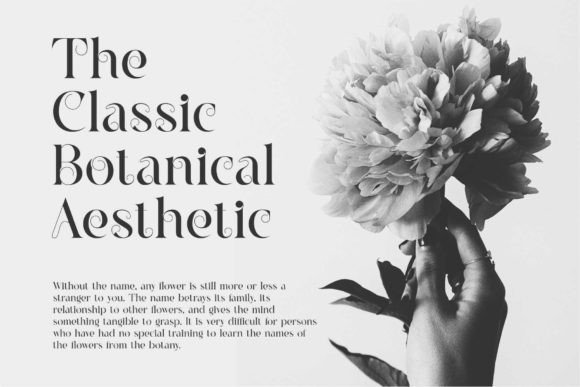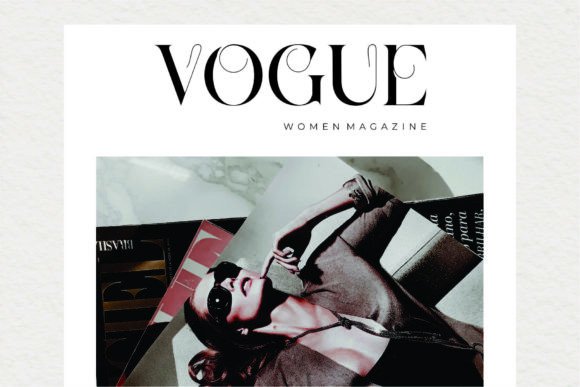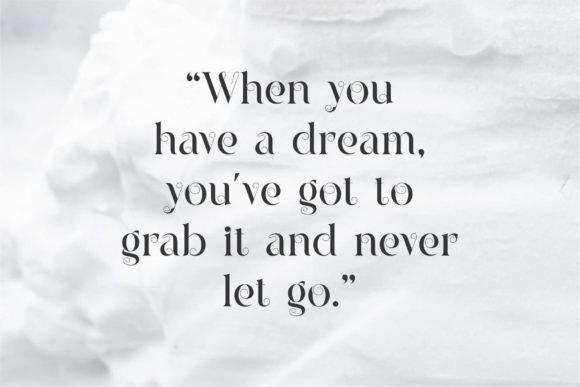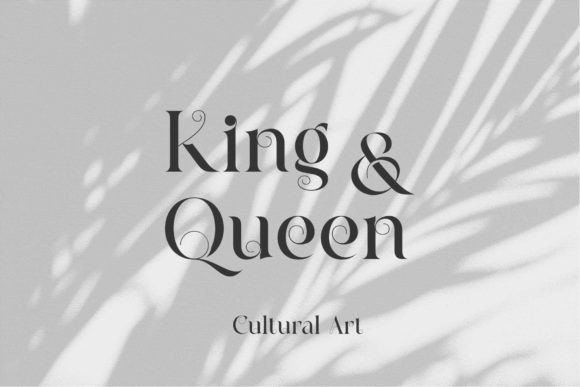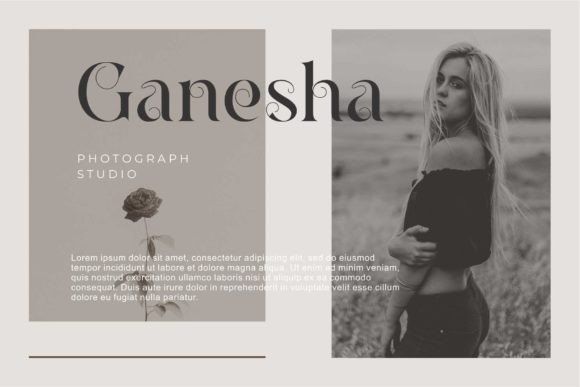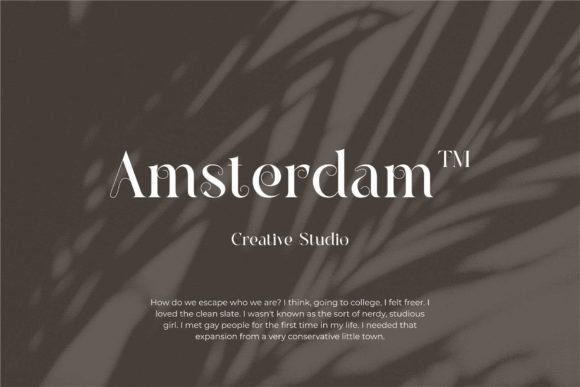
Introduction to Quilla Sugar Font
**Quilla Sugar Stylish Serif Font** is inspired by the famous minimalist logo perfect for the purposes of designing templates, brochures, videos, advertising branding, logos, invitations, layout design, elegant crafting, beauty design, and more.
Key Features of Quilla Sugar Font
Why Choose Quilla Sugar Font?